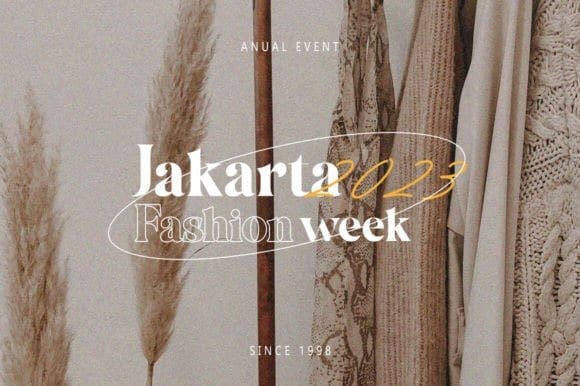
Begina Display Font
Begina Display Font is a modern vintage serif font packaged in a modern and classy style, complete with access to your OpenType features to access a large selection of alternates letters and ligatures, the choice of letters you like from variations of uppercase and lowercase letters to get a display luxurious and elegant.